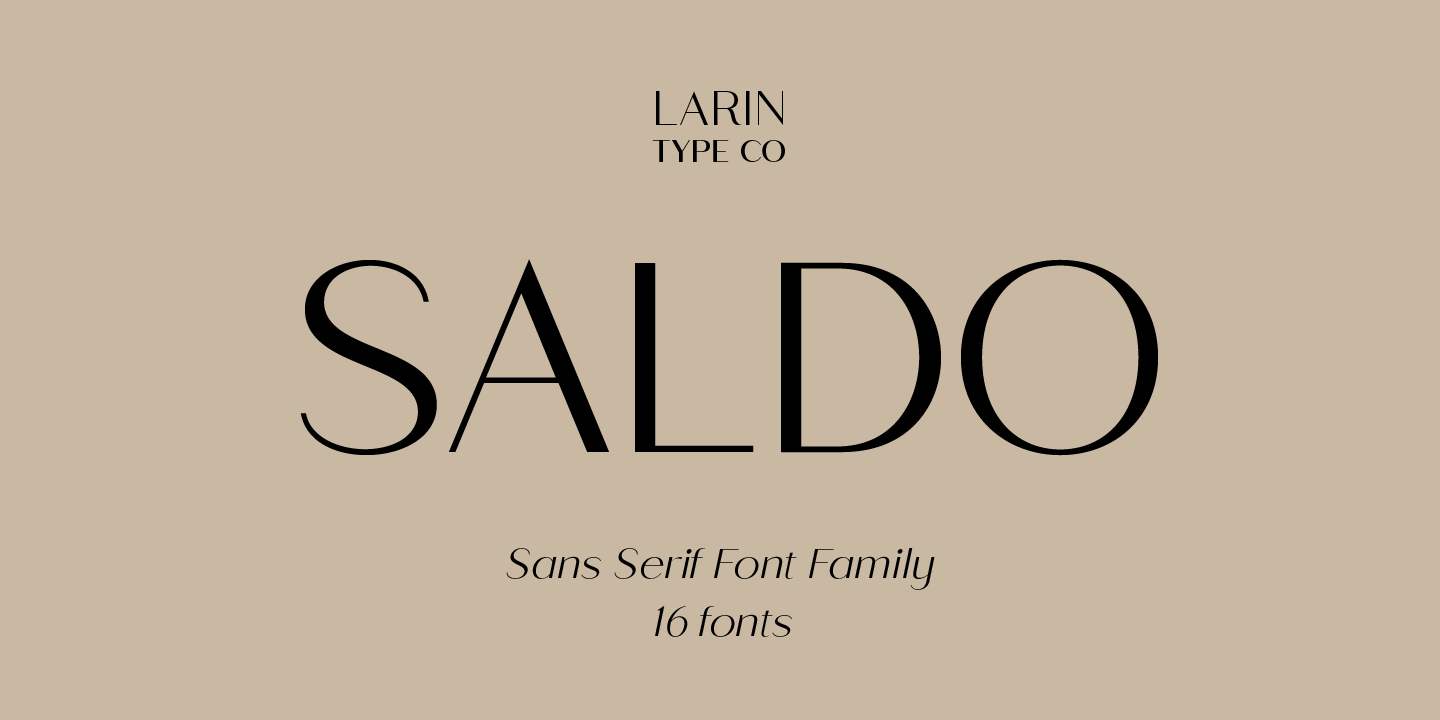
Saldo Font is perfect for financial services branding, banking institution logos, accounting firm presentations, investment company materials, budget planning software interfaces, financial planning documents, economic consulting designs, balance sheet layouts, financial app designs, and professional financial communications that require trustworthy precision and balanced sophistication.
This font is exciting because it perfectly embodies the principles of financial balance and numerical precision with meticulously crafted letterforms that reflect the accuracy, stability, and trustworthy reliability essential to financial services and monetary management. Saldo Font features balanced proportions and clear geometric construction that communicate the mathematical precision and professional confidence required for handling financial matters and monetary decisions.
Saldo Font family includes Regular, Bold, Light, Medium, Precise, Balanced, Professional, and Digital versions, plus financial symbols, currency marks, mathematical operators, and numerical elements that enhance the authentic financial aesthetic and provide comprehensive design solutions for banking and financial applications.
For financial services and professional accounting projects, Saldo Font Free Download delivers exceptional precision and financial credibility. The font's balanced letterforms and financial character make it perfect for banks, accounting firms, and financial advisors seeking to communicate accuracy, stability, and professional financial expertise. Its precise design appeals to clients who demand reliability and mathematical accuracy in financial services. The character set includes specialized financial symbols and currency notation that meet banking industry standards. Professional designers appreciate its ability to convey both financial authority and trustworthy precision while maintaining excellent readability across financial documents, banking communications, and investment materials, making it essential for organizations that want to project the balanced stability and mathematical precision that defines professional financial services and inspires client confidence in monetary management and investment decisions.